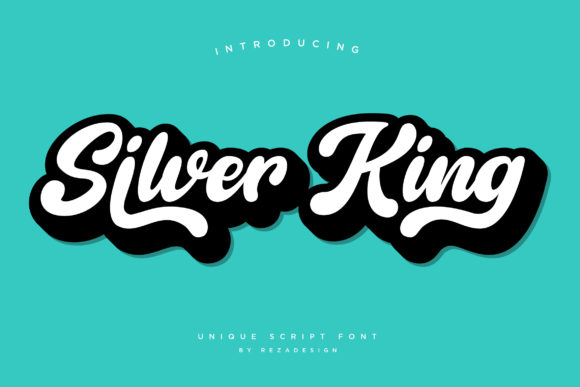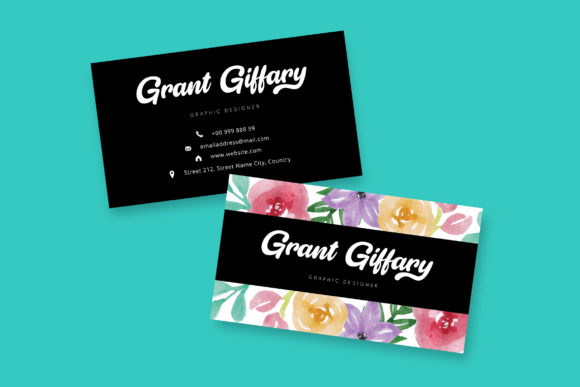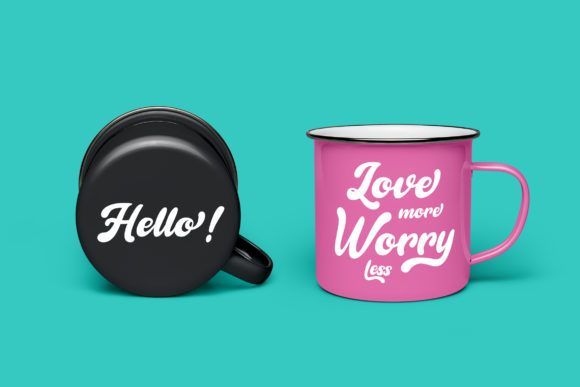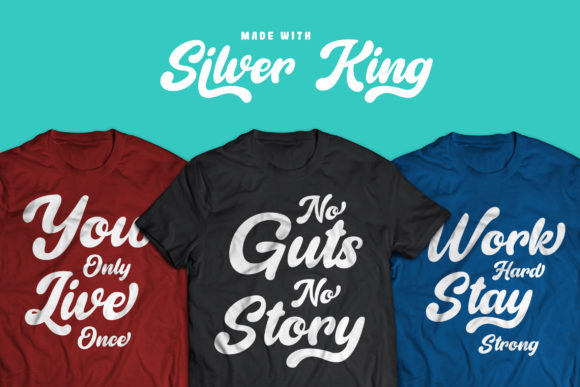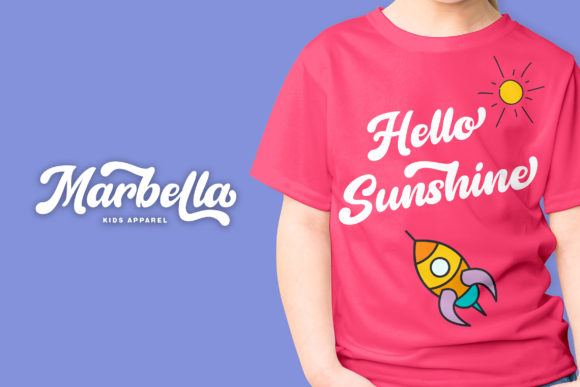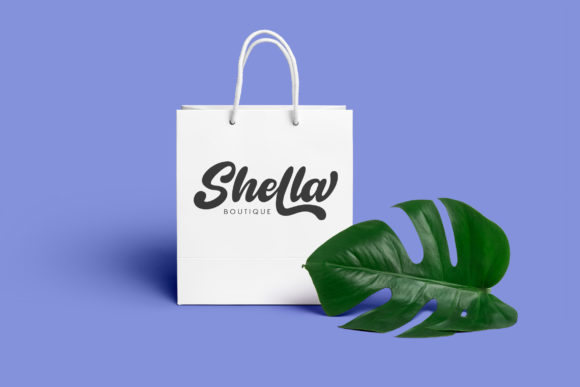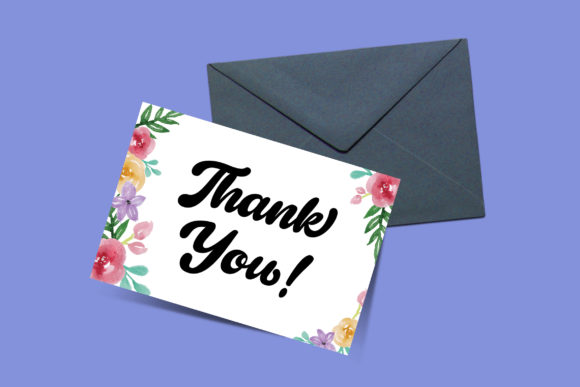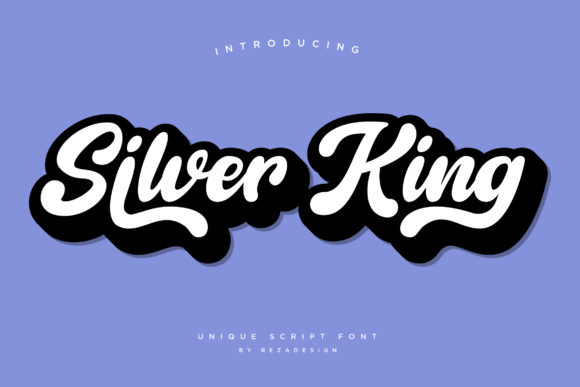
Silver King Font
About Silver King Font
Silver King is a fun and bold handwritten font, full of authentic charm! It will add a personal charm to any design project!